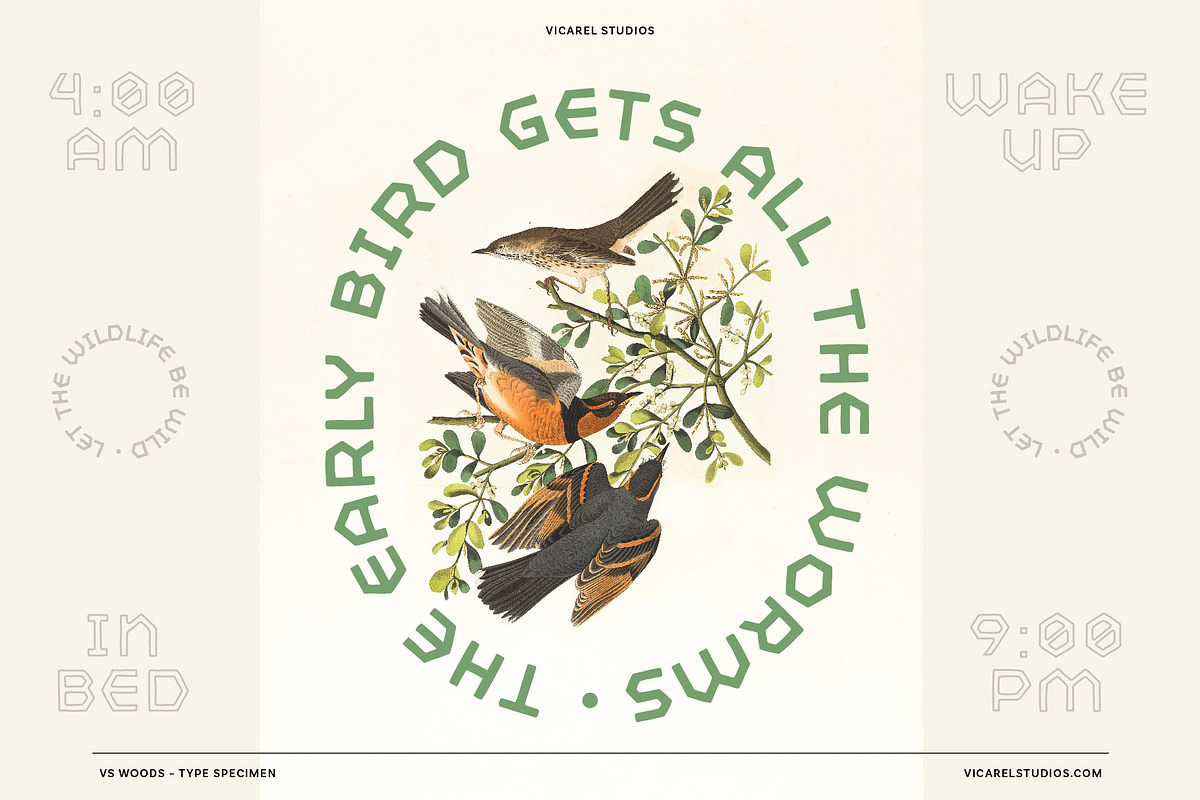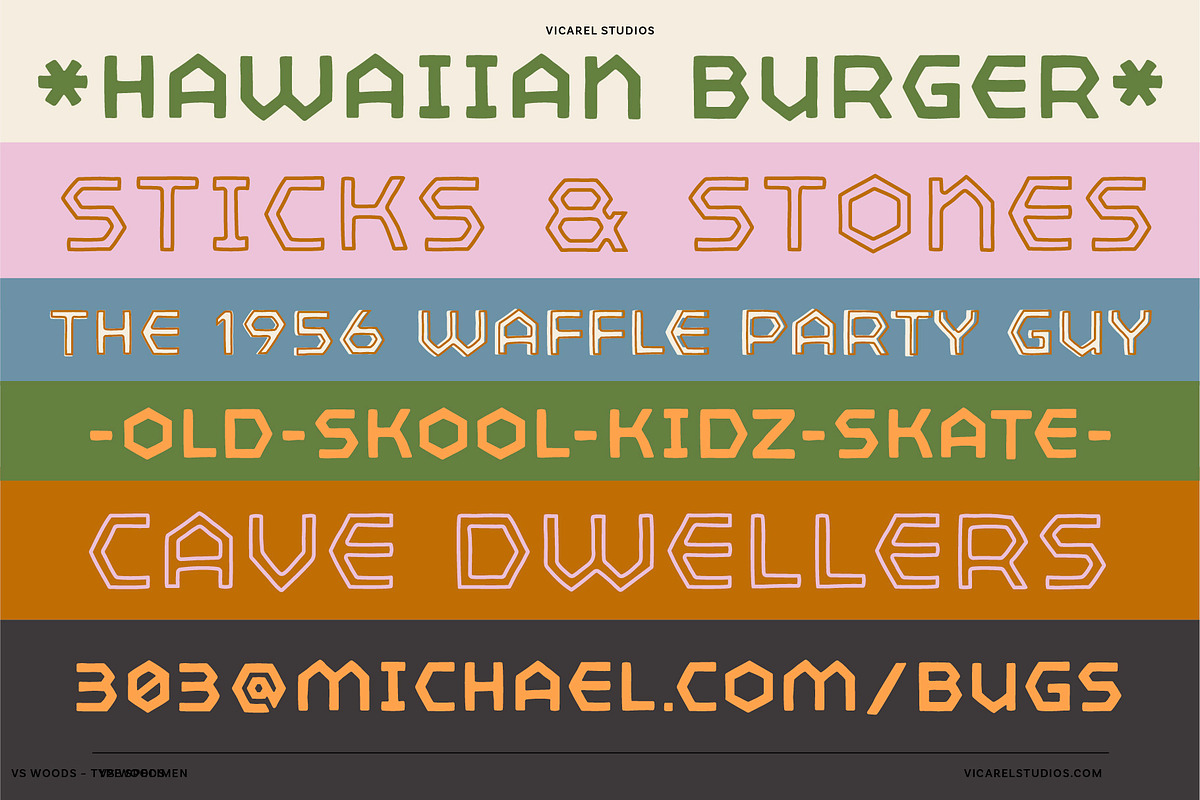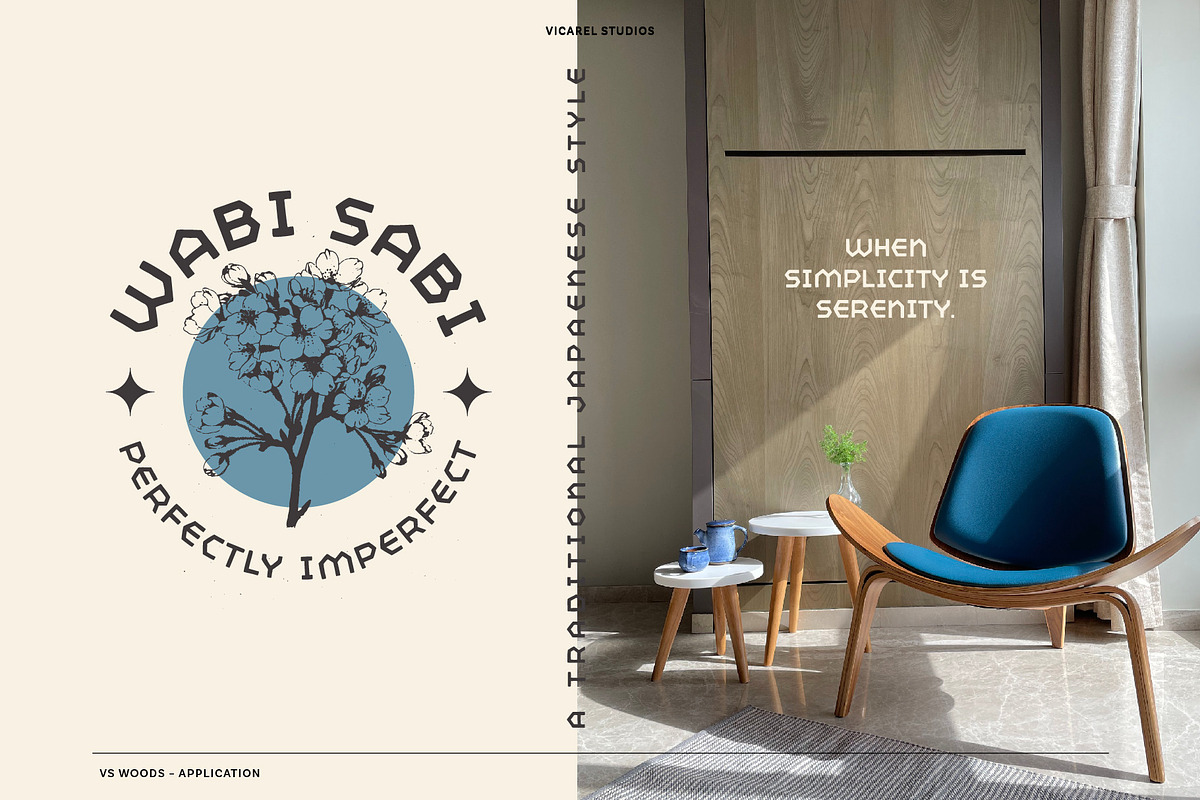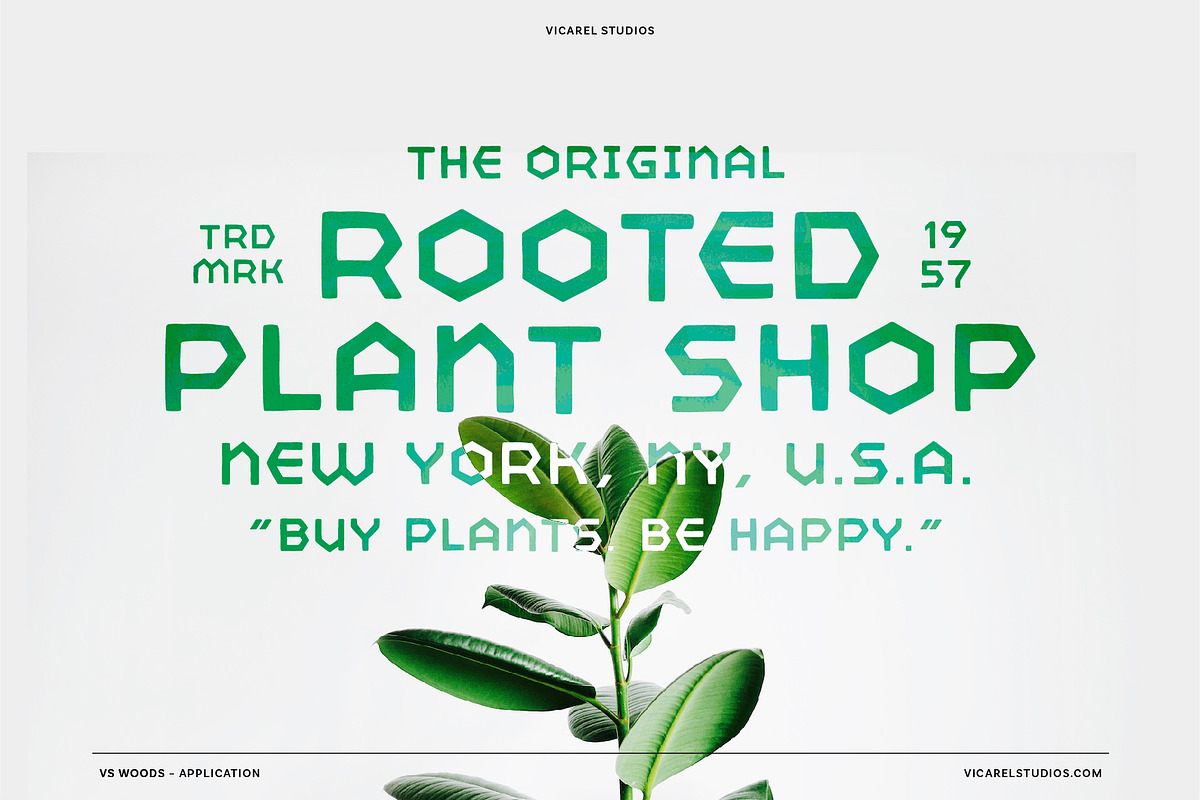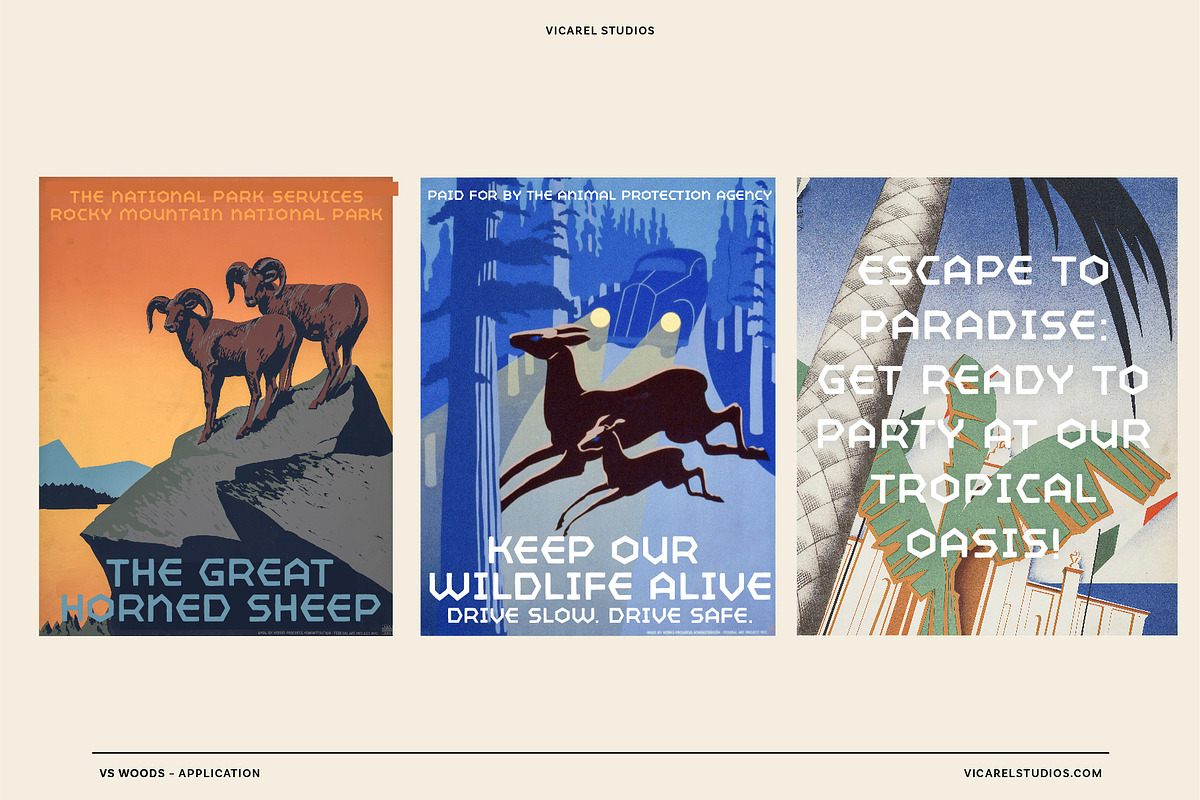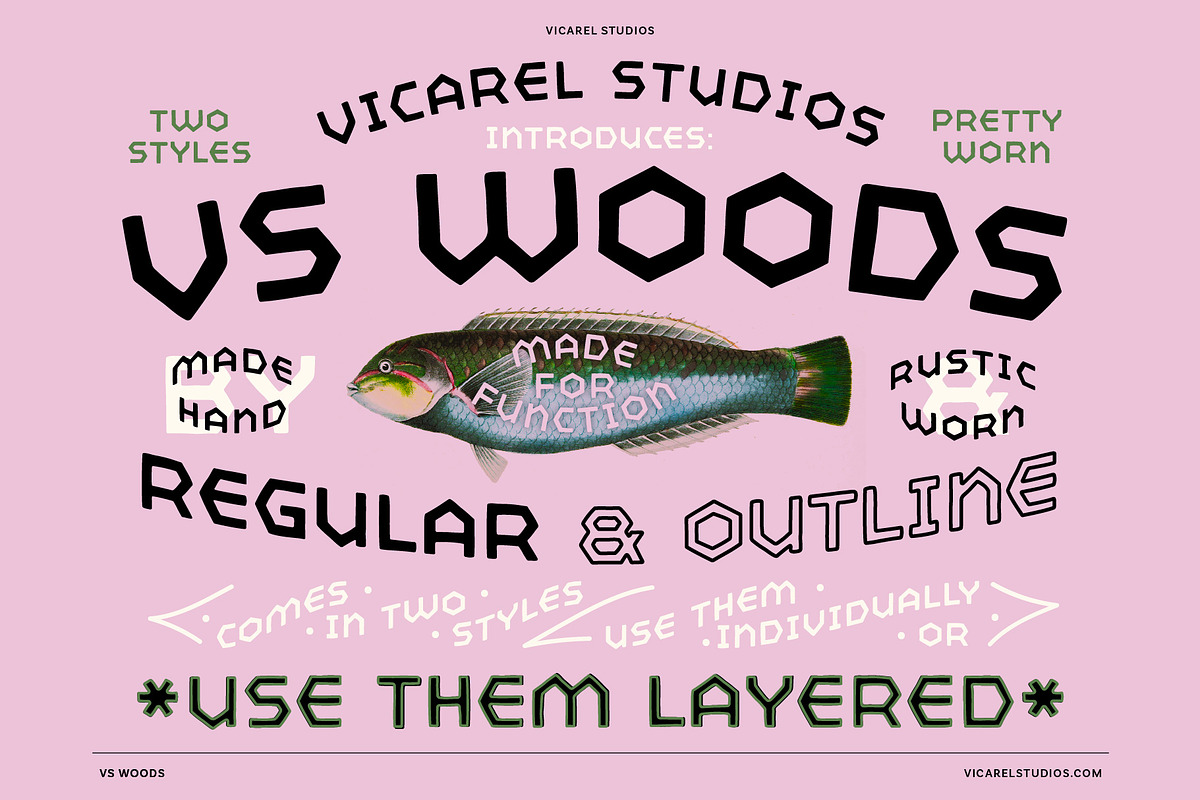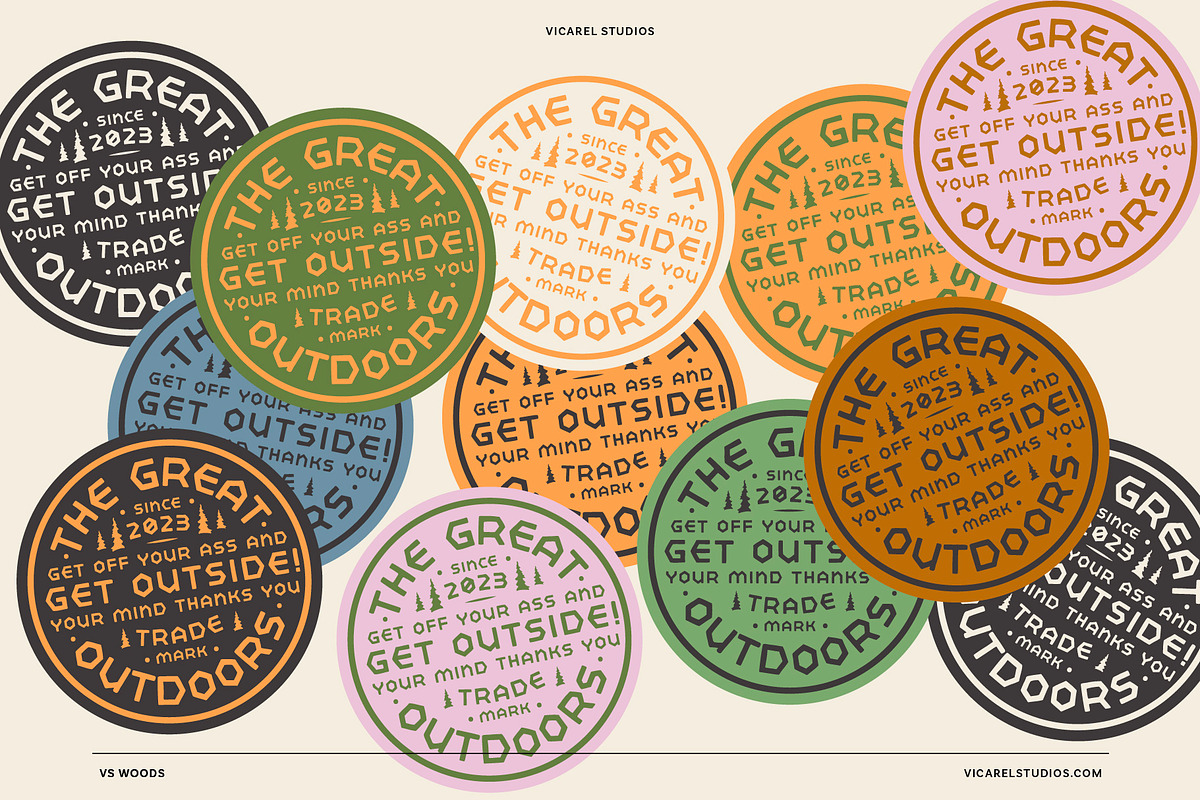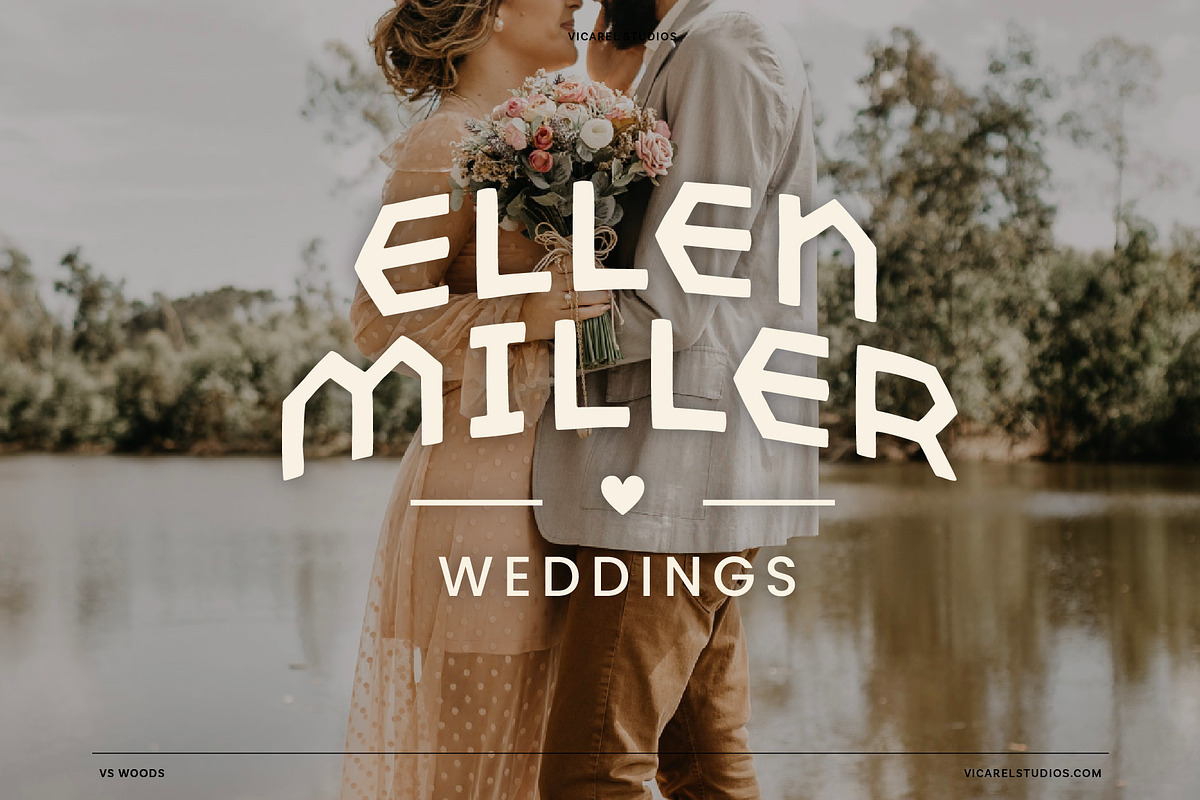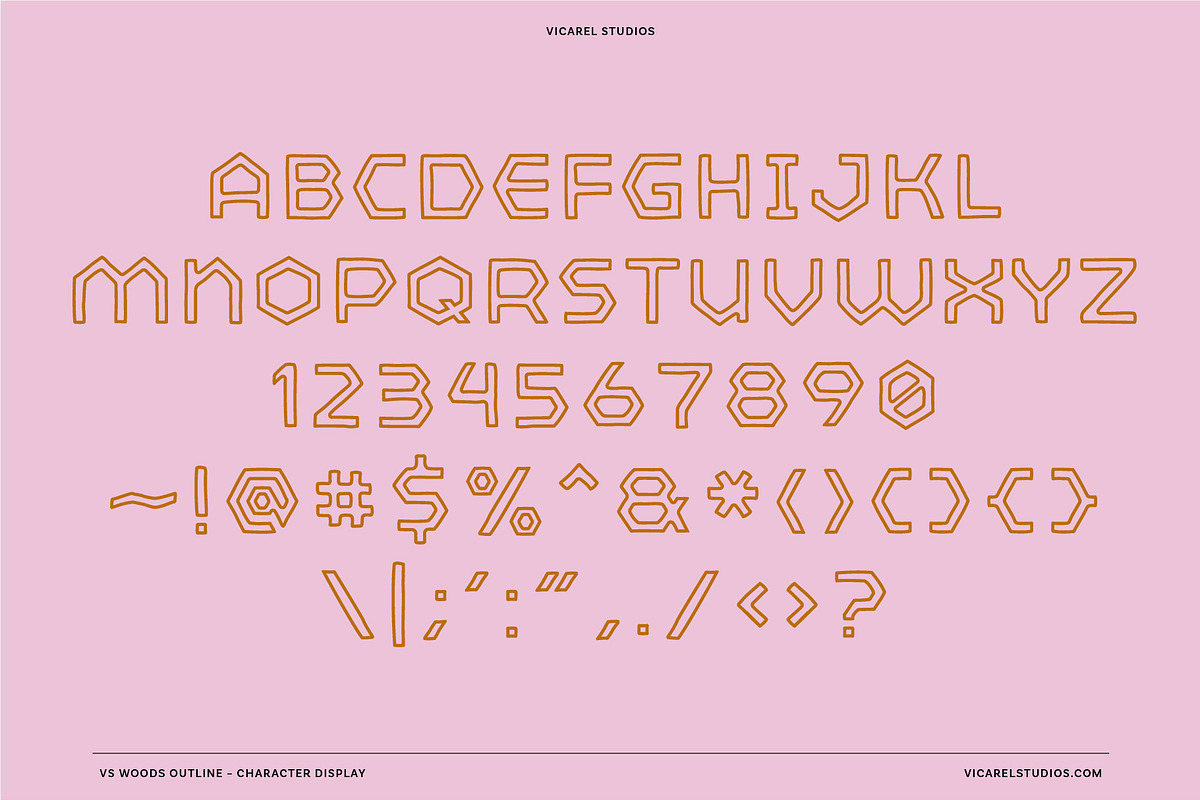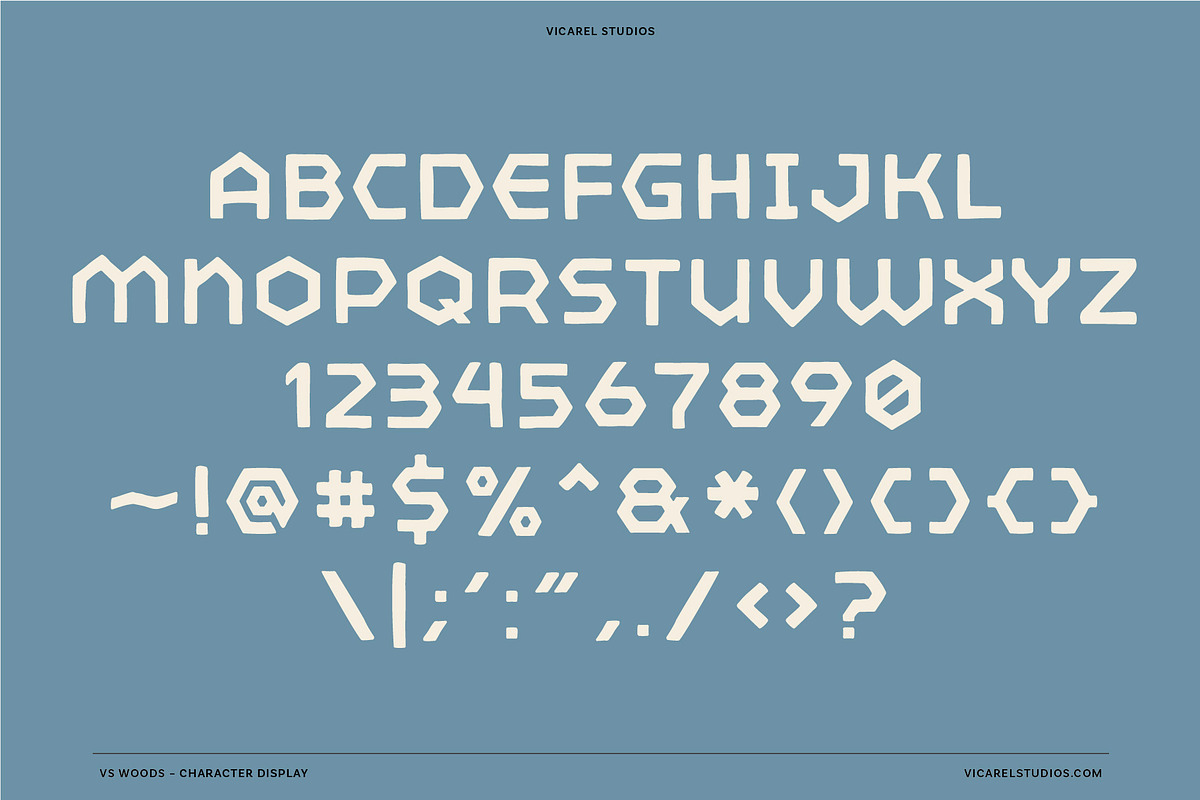
VS Woods // Hand Drawn Font
Introducing VS Woods, a handwritten font that has the following characteristics: wide, extended, chunky, angular, soft, bold sans-serif font. With an organic hand-written style, VS Woods comes with 2 family styles: Regular and Outline.
Inspired by vintage national park poster fonts, this handwritten font, delivers a distinctly human touch to your projects, and is perfect for designs that require a look that is rough, hand drawn, modern vintage, soft, and/or approachable.